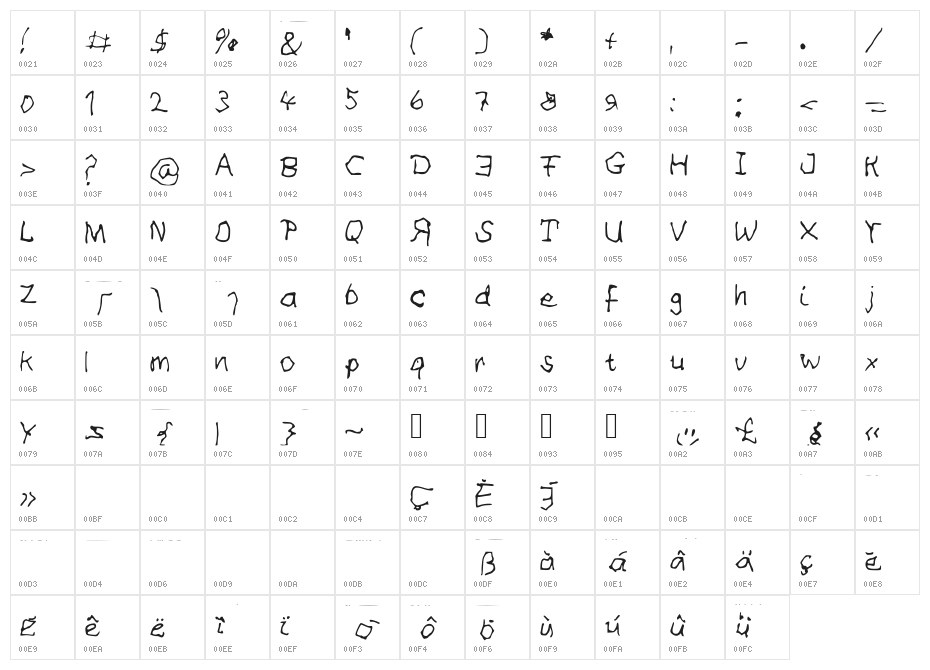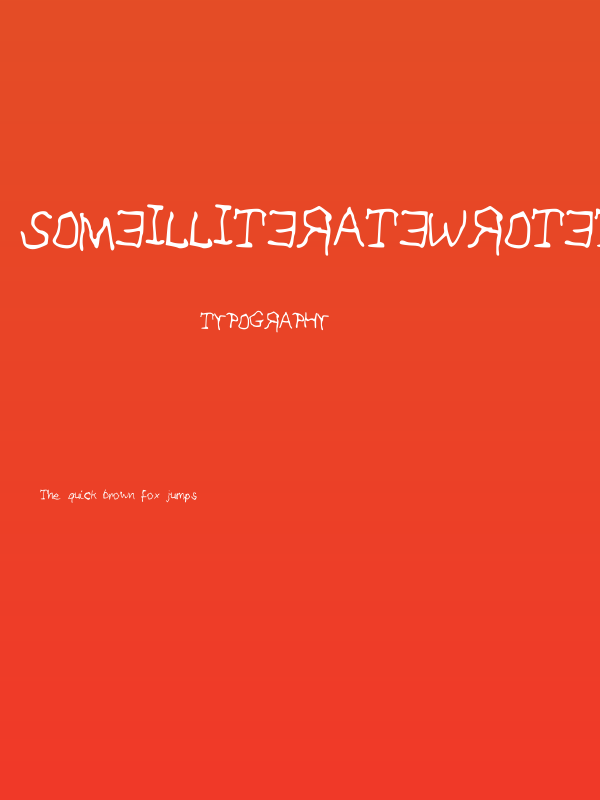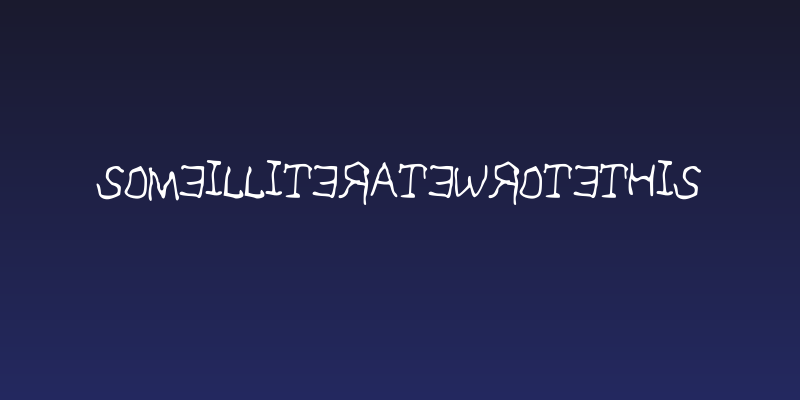
SomeIlliteratewrotethis Font
SomeIlliteratewrotethis Description
This font features a playful and irregular handwritten style, characterized by its uneven strokes and whimsical appearance. The letters have a casual, almost childlike quality, with varying heights and widths that give it a unique, informal look. The uppercase and lowercase letters maintain a consistent style, with rounded edges and a slightly tilted orientation. Numbers and special characters follow the same playful design, making the font suitable for creative and informal projects. Its distinctive style makes it stand out, adding a touch of personality and charm to any design.
| Overall Style | Playful and informal |
| Use Case | Headlines, Creative projects, Informal designs |
| Proposed Projects | Ideal for children's books, playful branding, casual invitations, and creative posters. |